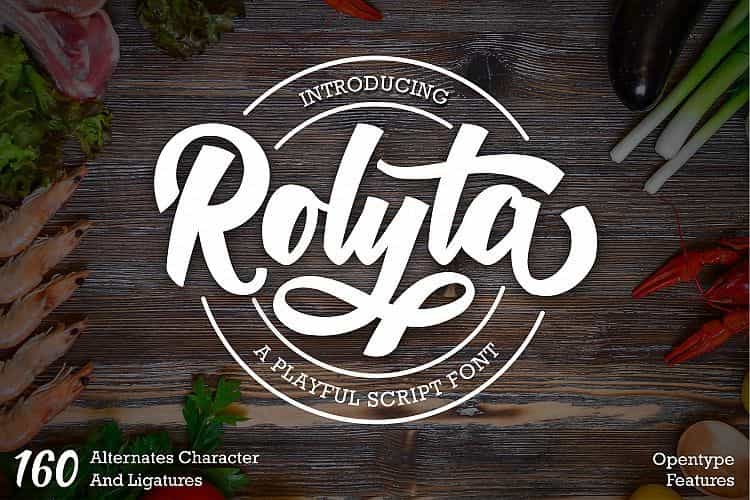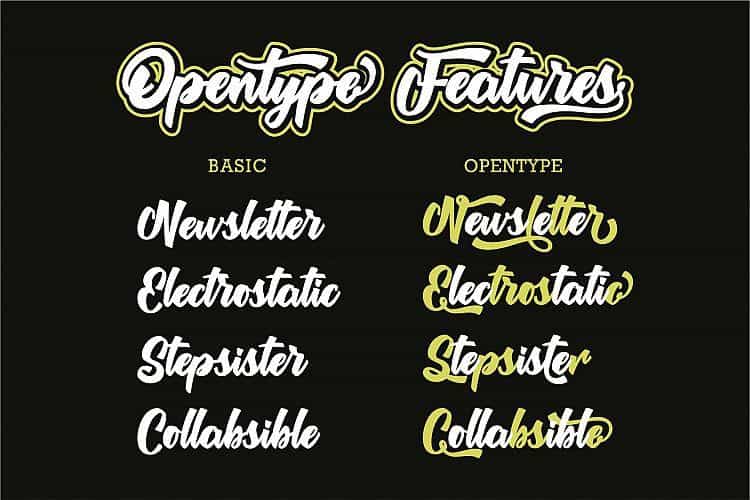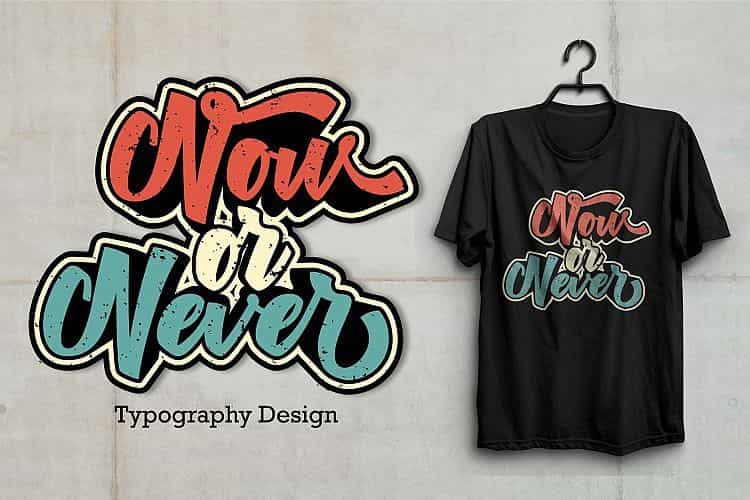
Introducing Rolyta Font. This is designed and shared by Slametype. Rolyta Playful Bold Script Font is a Bold s cript font that was designed to look great in your designs.. This can be a good choice for many different project such as logos & branding, invitation, stationery, wedding designs, social media posts, advertisements, product packaging, product designs, label, photography, watermark, special events, or anything.